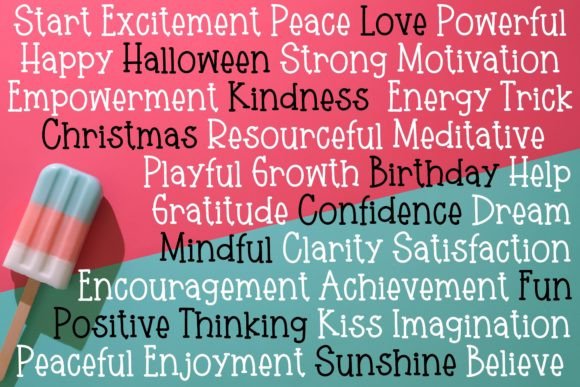
About Minimal Holiday Font
Minimal Holiday is a fun and friendly handwritten font. No matter the topic, this font will be an incredible asset to your fonts’ library, as it has the potential to elevate any creation.